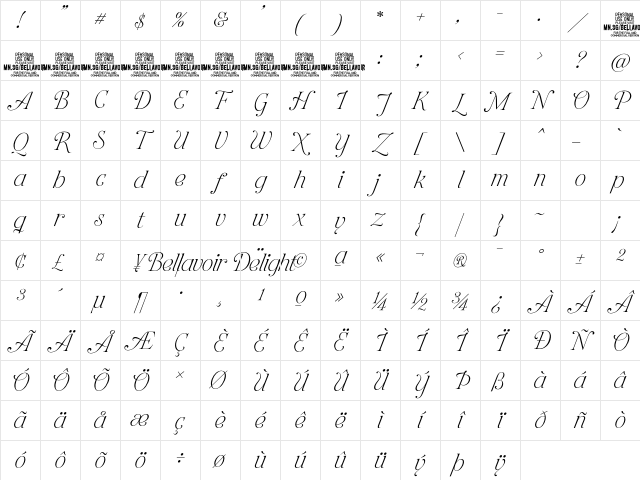
Complete Bellavoir Delight PERSONAL USE Regular glyph index. Displaying only characters natively supported by Bellavoir Delight PERSONAL USE Regular font.
Bellavoir Delight PERSONAL USE is a composed and adaptable typeface that performs quietly and consistently across a wide range of design contexts. Its slender proportions lend an understated elegance to any composition.